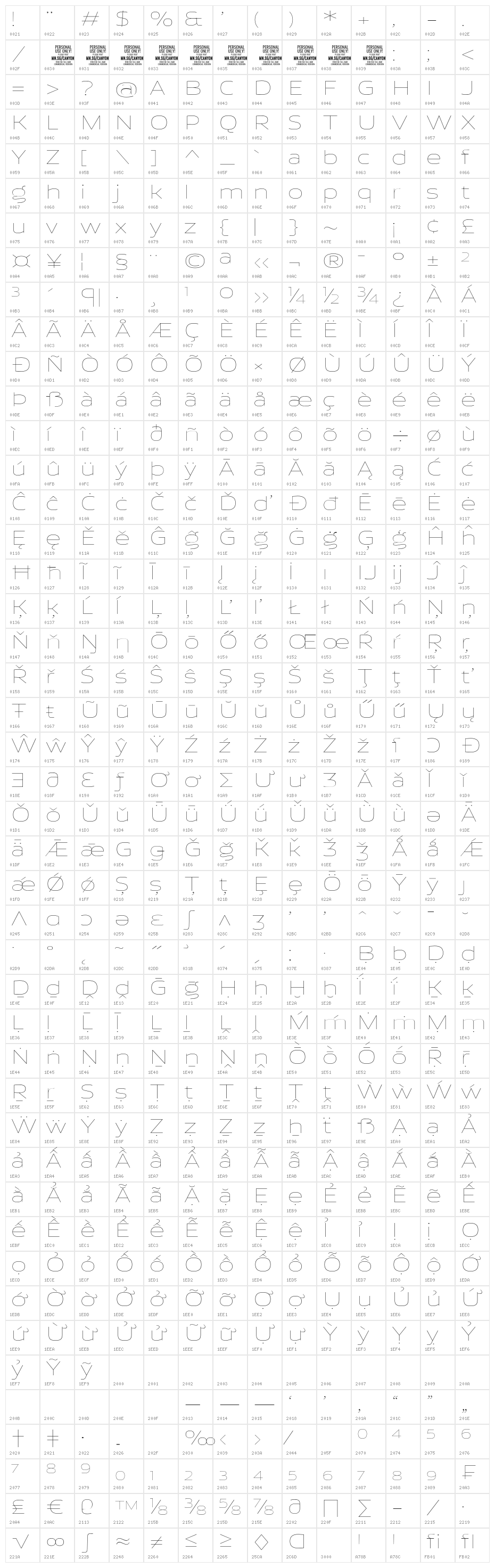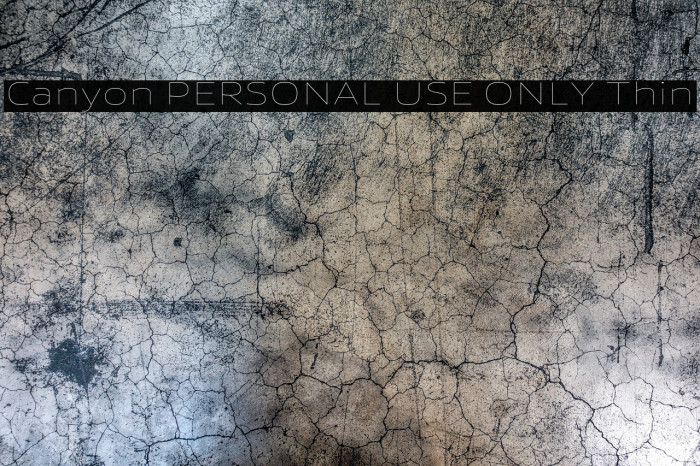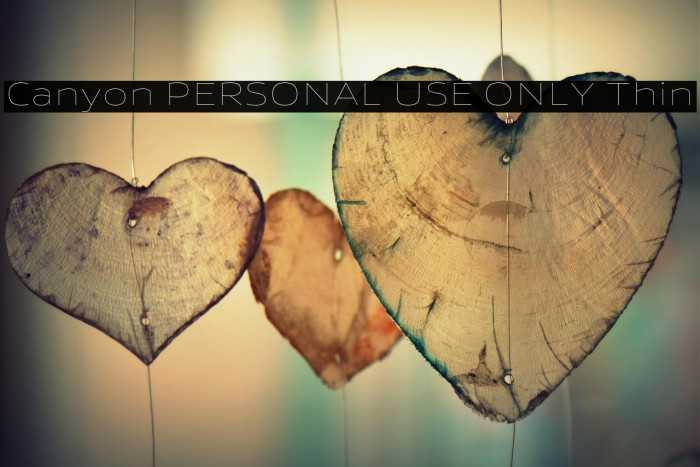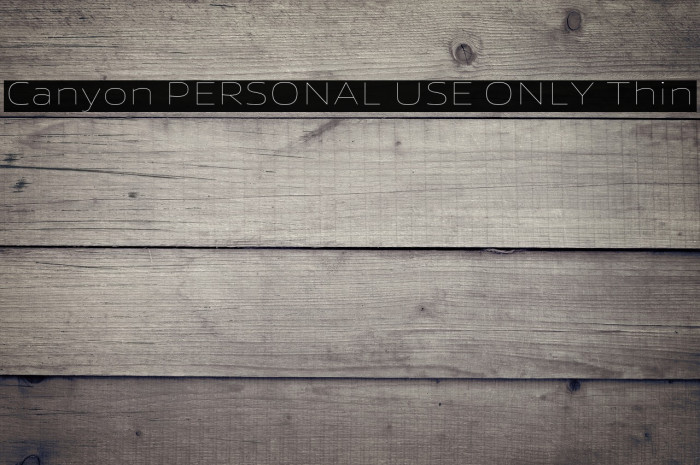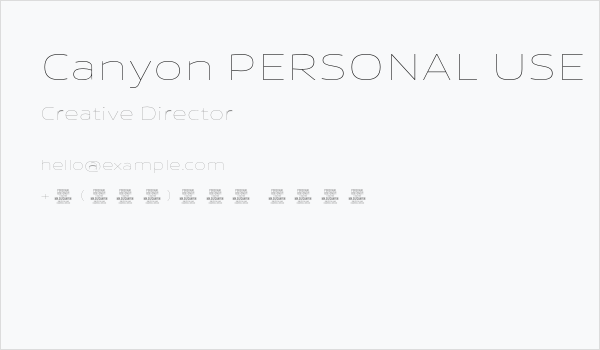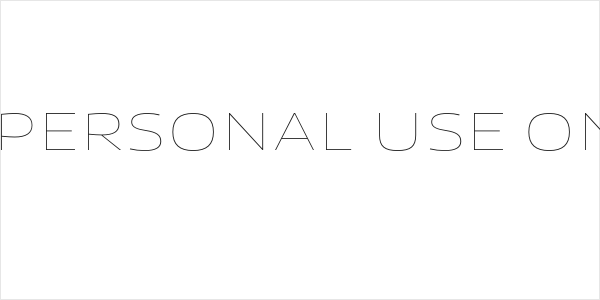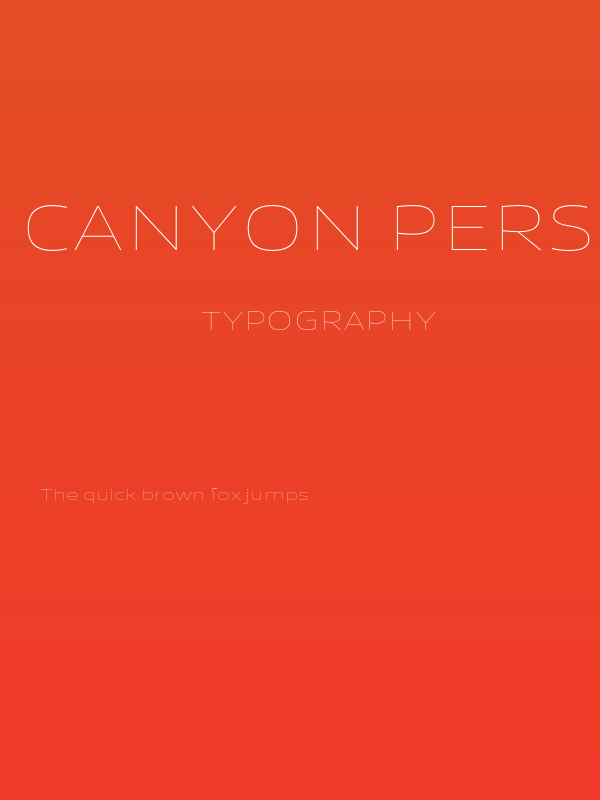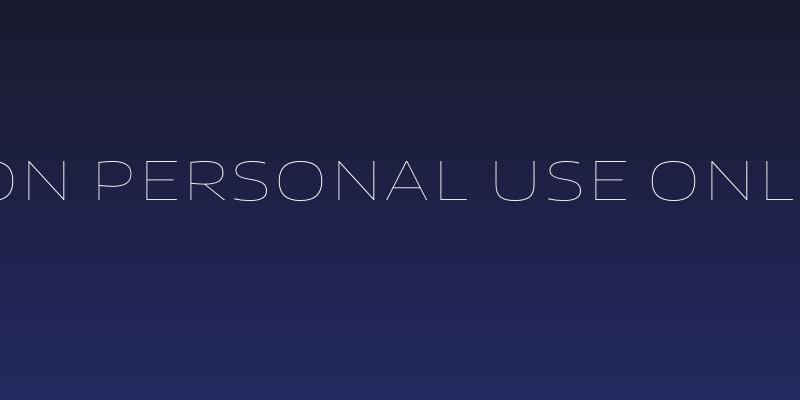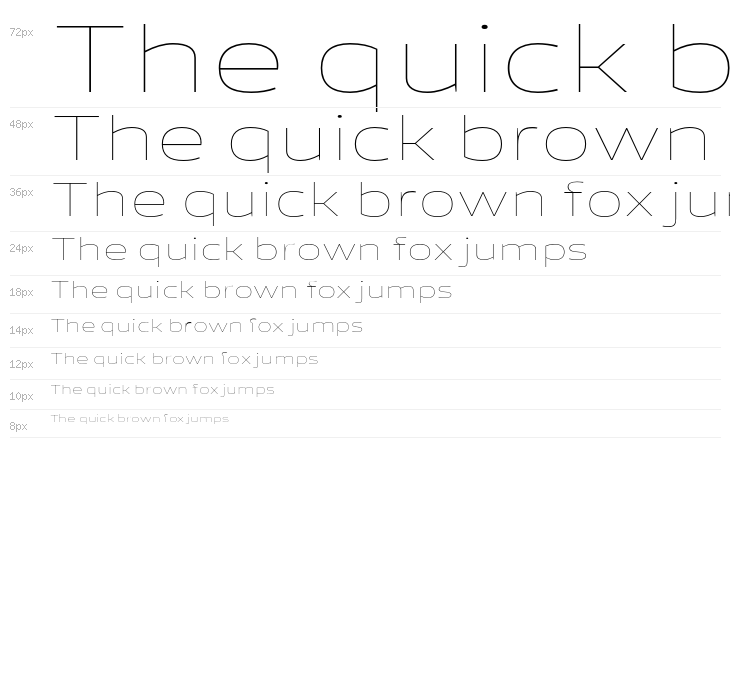
Canyon PERSONAL USE ONLY Thin Font
Canyon PERSONAL USE ONLY Thin Description
This font features a sleek, minimalist design with thin, clean lines that give it a modern and sophisticated appearance. The characters are evenly spaced, providing a balanced and airy feel. The uppercase letters are tall and elegant, while the lowercase letters maintain a consistent style with subtle curves. The numerals and special characters are designed to complement the alphabet, maintaining the font's overall aesthetic. This font is ideal for projects that require a contemporary and refined look.
| Proposed Projects | Ideal for branding, editorial design, modern websites, and minimalist posters. |